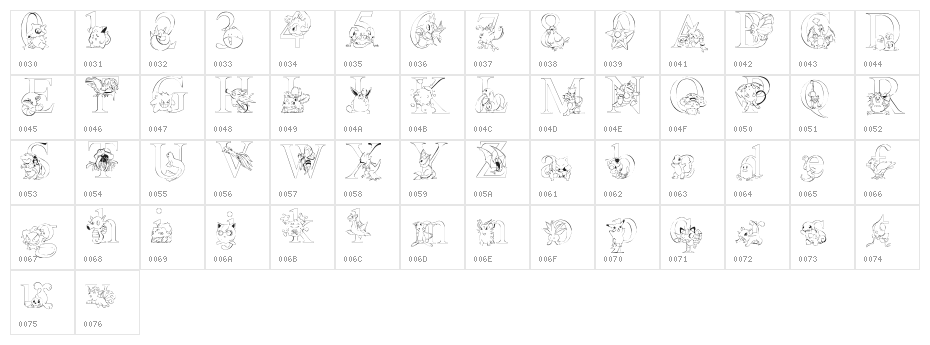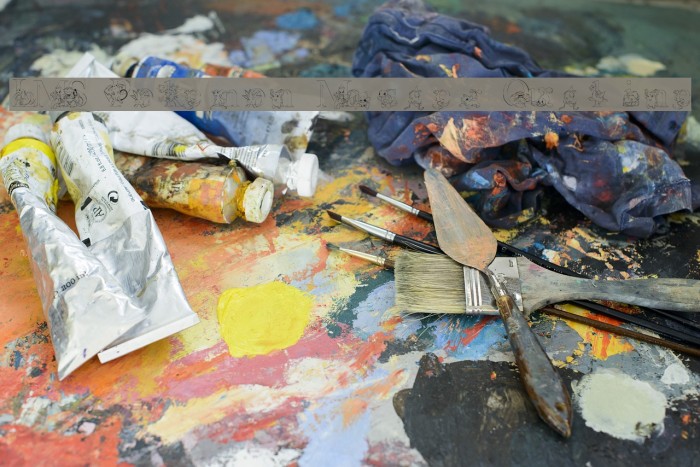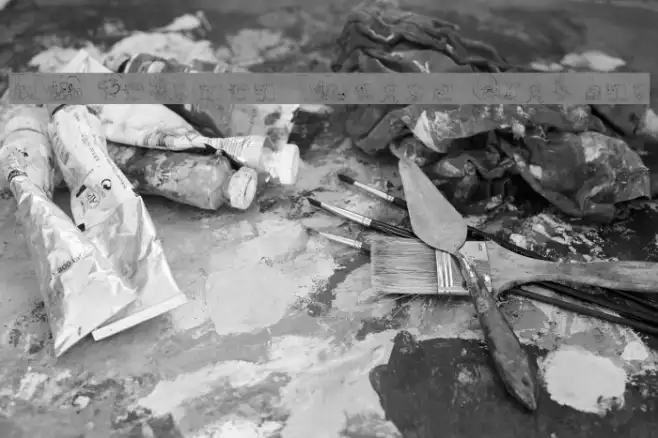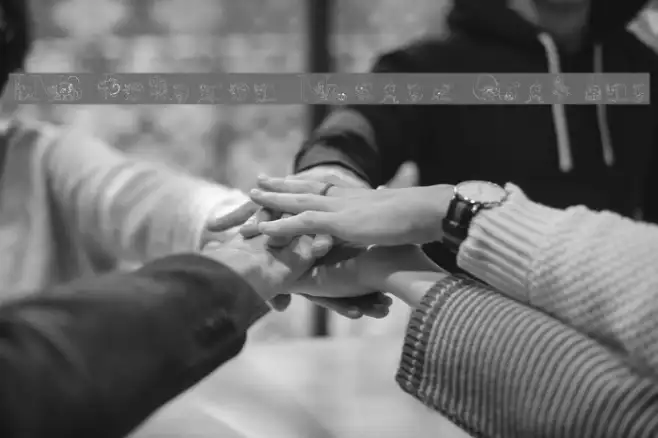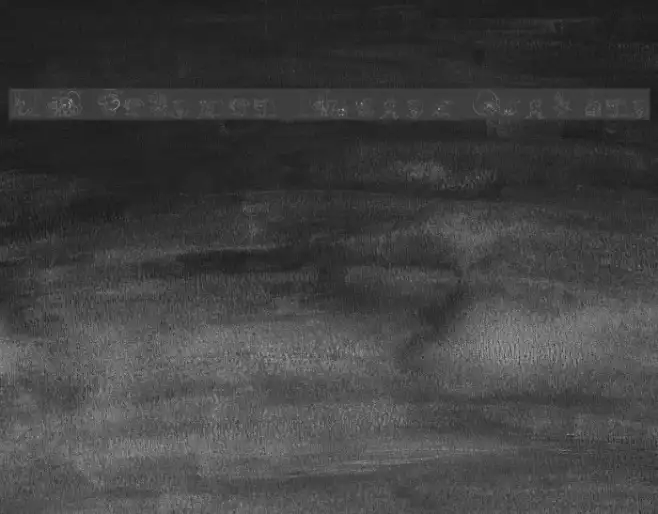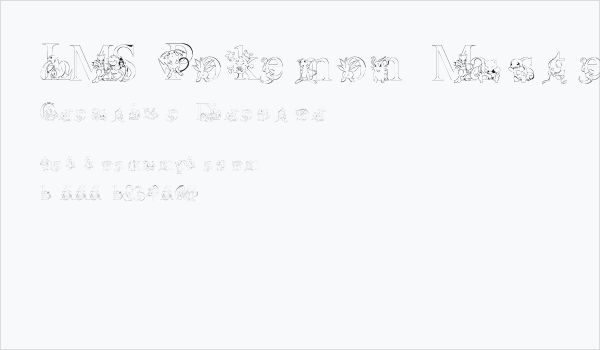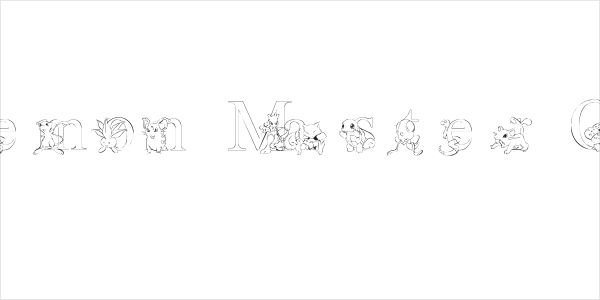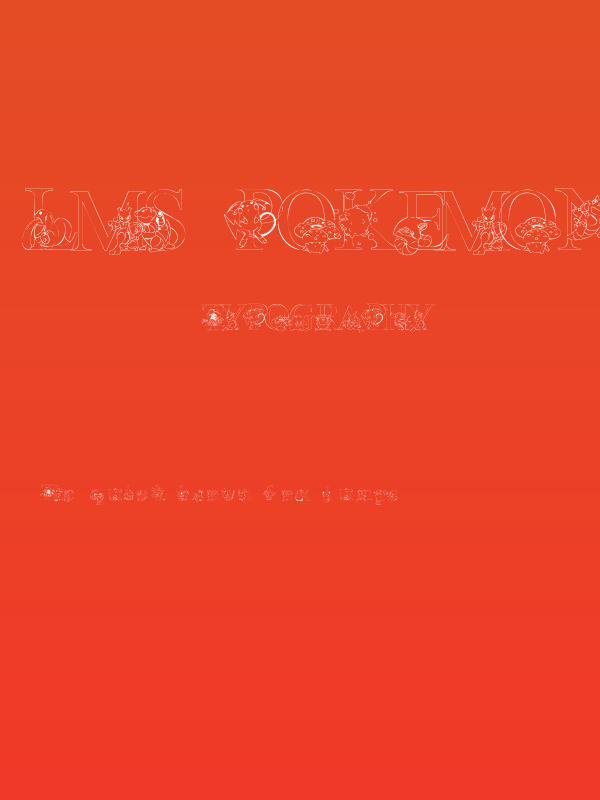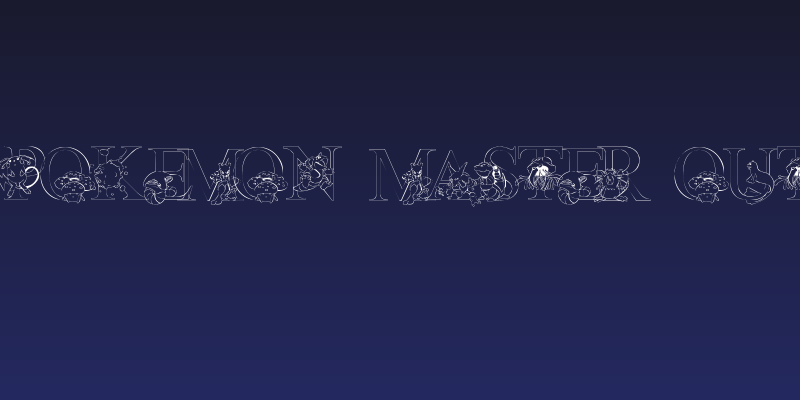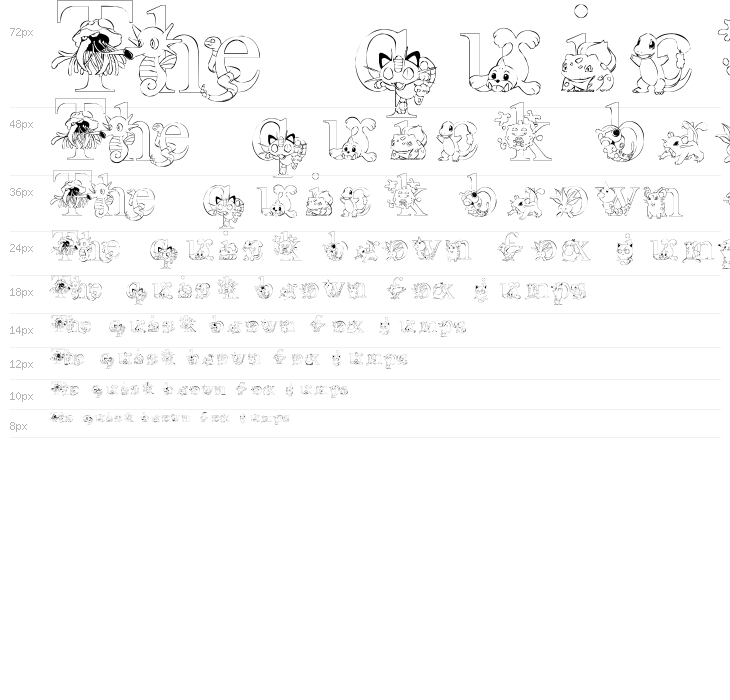
LMS Poke'mon Master Outline Font
LMS Poke'mon Master Outline Description
This playful and decorative font features outlines of letters and numbers filled with whimsical illustrations of various creatures. Each character is uniquely adorned with detailed, cartoon-style artwork that adds a lively and engaging element to the overall design. The font maintains a consistent outline style, ensuring readability while allowing the intricate designs to stand out. The combination of bold outlines and intricate interior designs makes it ideal for projects that require a fun and imaginative touch. The characters are evenly spaced, providing a balanced appearance across different uses.
| Proposed Projects | Ideal for children's book covers, playful posters, themed party invitations, and creative branding projects. |